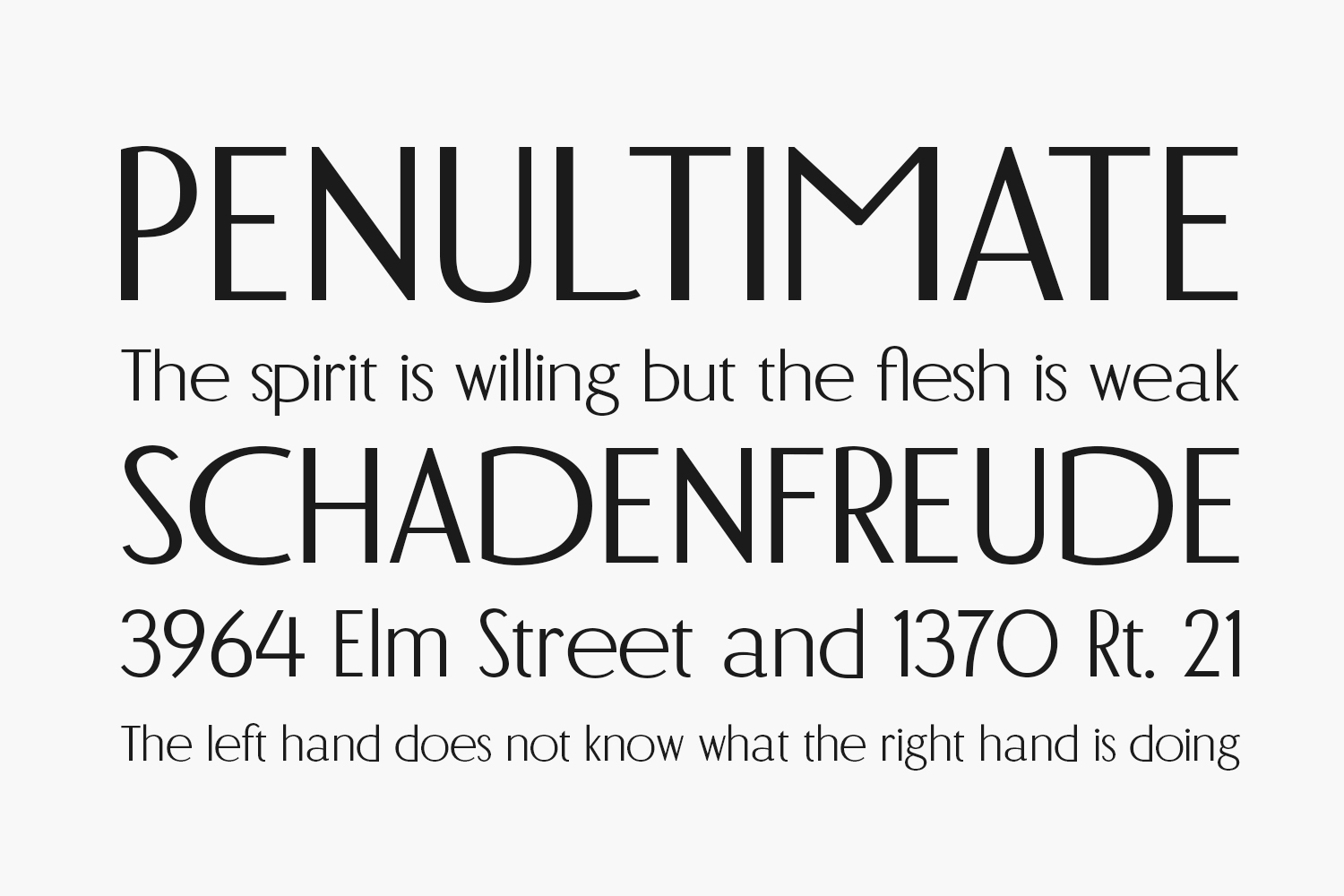
Rochaline Free Font is a fashion-chic display font. This font was inspired by and for fashion brands around the world. In general, it creates a luxurious and elegant look in design. Rochaline Free Font is free for personal use only. Please purchase the full version for commercial use.
Designed by Lemon Studio Type